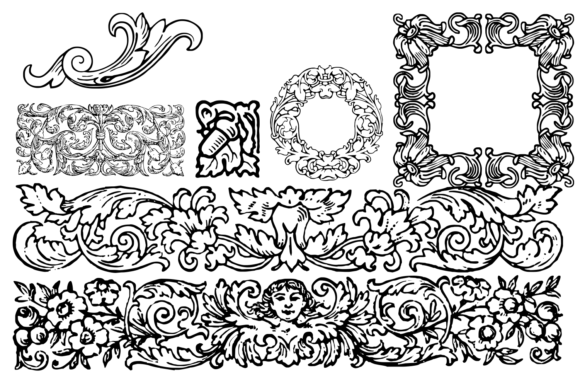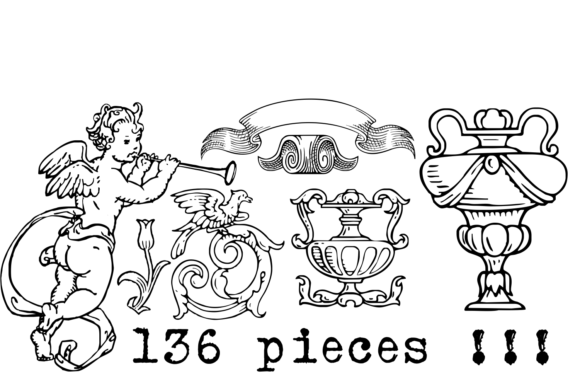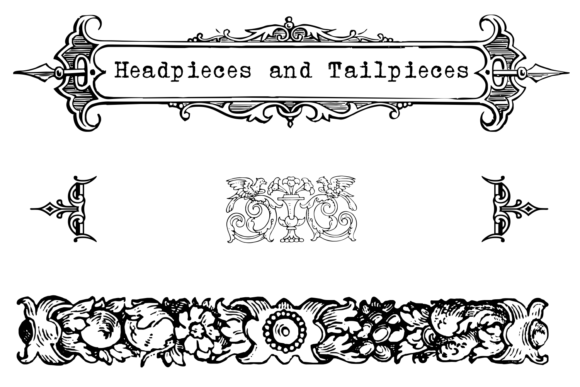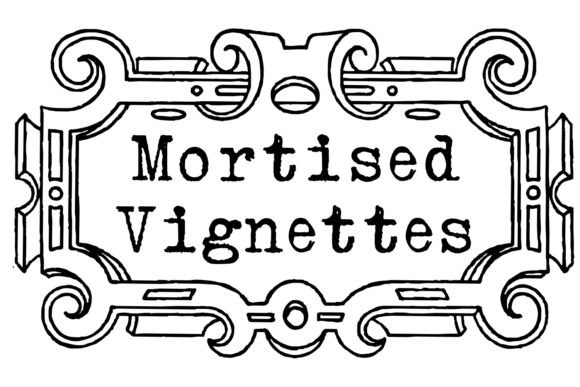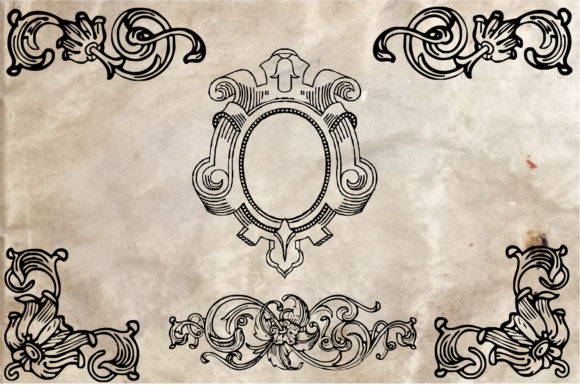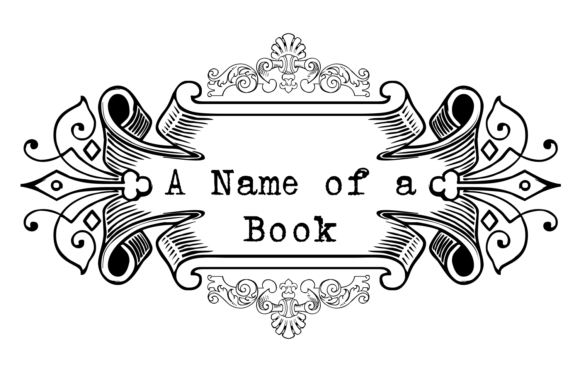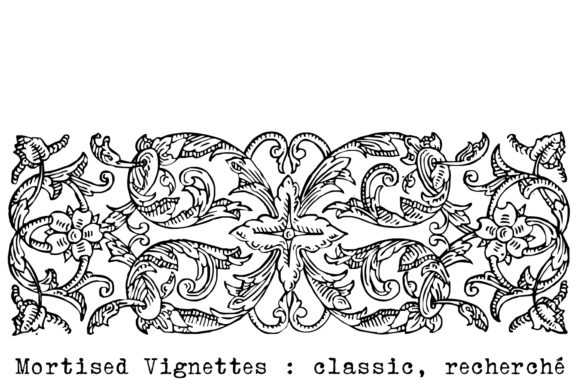
Mortised Vignettes Font
About Dingbats Ornaments Font
Absolutely! “Dingbats Ornaments” is an incredibly useful dingbats font that can enhance a wide range of designs. With its collection of decorative symbols and ornaments, this font offers a versatile and creative way to add visual interest and elegance to your projects. Here are some ways you can incorporate “Dingbats Ornaments” into your designs:
1. Typography: Use the ornamental symbols from the font to create eye-catching drop caps or embellish the beginnings or endings of paragraphs. These decorative elements can make your text more visually appealing and draw attention to important sections of your design, such as headings or titles.
2. Borders and Frames: Utilize the ornamental symbols to create decorative borders or frames around text, images, or entire design compositions. These decorative elements can add a touch of sophistication and elegance to invitations, certificates, posters, or any other design that requires a formal or decorative touch.
3. Logo Design: Incorporate the ornamental symbols from “Dingbats Ornaments” into your logo design to add a unique and stylish element. These symbols can be used as decorative accents or incorporated into the typography of your logo to create a distinctive and visually appealing brand identity.
4. Stationery and Invitations: Use the ornamental symbols to create visually appealing designs for stationery items such as letterheads, business cards, or notepads. You can also add these symbols to invitations for weddings, parties, or special events, giving them an elegant and personalized touch.
5. Web Design: Apply the ornamental symbols from “Dingbats Ornaments” to your website design to add visual interest and enhance the overall aesthetics. These symbols can be used as decorative elements in headers, navigation menus, or as separators between sections, providing a visually pleasing and cohesive design.
6. Packaging Design: Incorporate the ornamental symbols into packaging designs to elevate the overall presentation and create a sense of luxury and sophistication. These symbols can be used to embellish product labels, tags, or packaging materials, enhancing the visual appeal and making your products stand out.
7. Crafts and DIY Projects: “Dingbats Ornaments” can be a valuable asset for various crafting and DIY projects. Use the symbols to create custom stencils, patterns, or designs for woodworking, paper crafts, or fabric printing. These decorative elements can add a unique and artistic touch to your handmade creations.
Remember to experiment with different combinations, sizes, and placements of the symbols to create unique and visually appealing designs. “Dingbats Ornaments” offers a wide range of decorative options to suit both formal and informal projects, making it a versatile and valuable addition to your design toolkit.
In summary, “Dingbats Ornaments” is an incredibly useful dingbats font that can be added to a variety of designs to elevate them. Whether you’re working on typography, borders, logos, stationery, web design, packaging, crafts, or DIY projects, this font offers a collection of decorative symbols and ornaments that can enhance the visual appeal and sophistication of your creations. Enjoy the versatility and creative possibilities of “Dingbats Ornaments” and let it bring a touch of elegance to your designs!